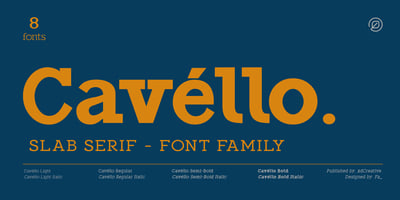
Cavello Font Family was designed by Faldy Kudo and published by XdCreative. Cavello contains 8 styles and family package options. Cavéllo is a bold and clean slab serif font. This original look will appeal to a wide range of crafty ideas, from letterheads and titles, to stationery.Cavéllo the font family contains 3 basic forms: italics, obliques and uprights, Each of which has 4 different weights: light, regular, semi-bold and bold. Cavéllo slab serif font family ideal for the logos as well, t-shirts, the web as well as for print, for motion graphics, It is also great for headings,